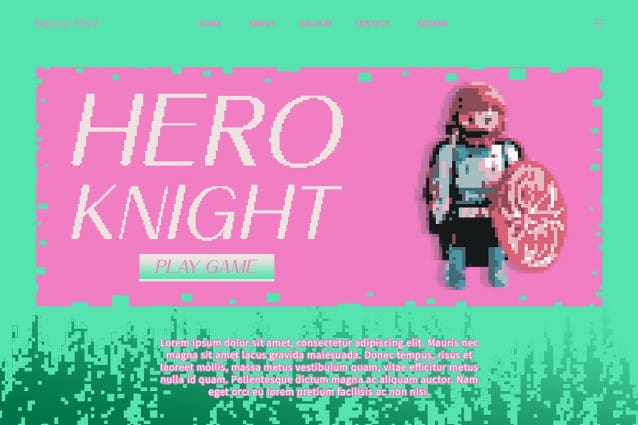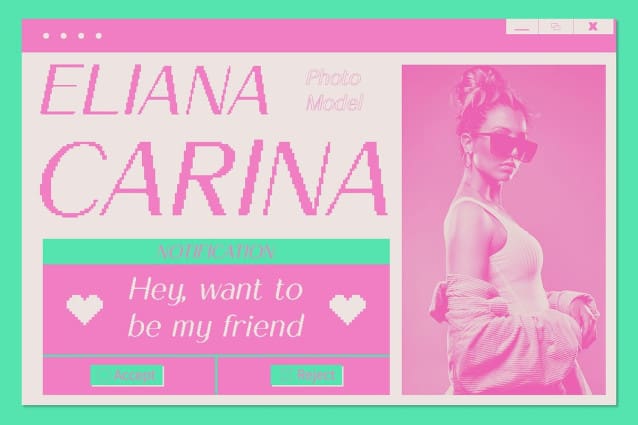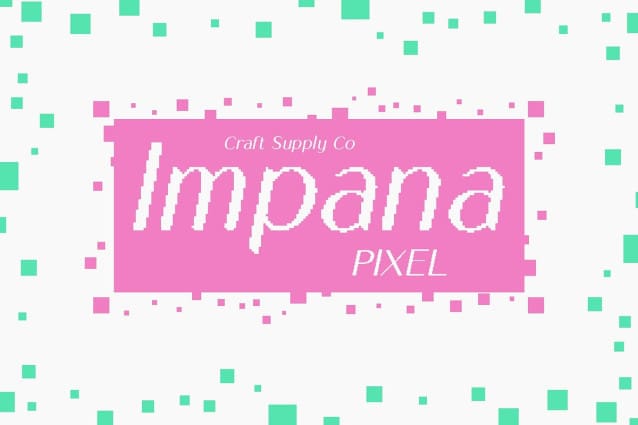
Impana Pixel Font
Impana Pixel Font is a modern sans-serif font that brings a touch of pixel aesthetics to contemporary design. Its unique blend of clean lines and pixelated details gives your projects a fresh, modern look with a hint of nostalgia.
Whether you’re designing a website, poster, or logo, this font stands out with its distinct character. The font’s pixelated design adds a playful element to your designs, making them memorable and engaging.
Impana Pixel is designed for display purposes, making it ideal for headlines, banners, and other attention-grabbing elements. Its clean, modern look combined with pixel vibes makes it a versatile choice for a wide range of projects.
Despite its pixelated details, this font is easy to read, ensuring that your message gets across clearly. The font’s balanced design makes it suitable for both small and large text, providing flexibility in your design options.